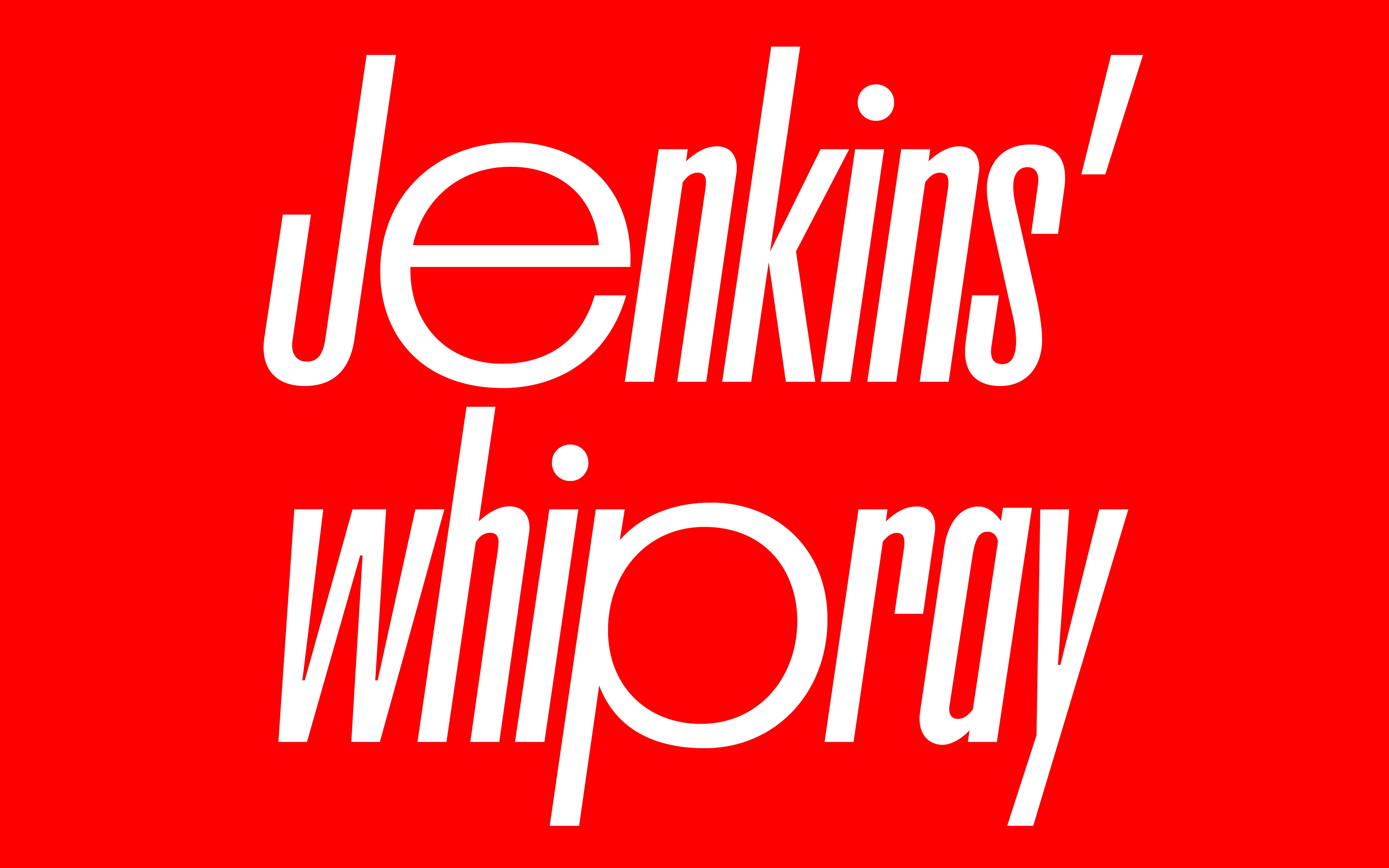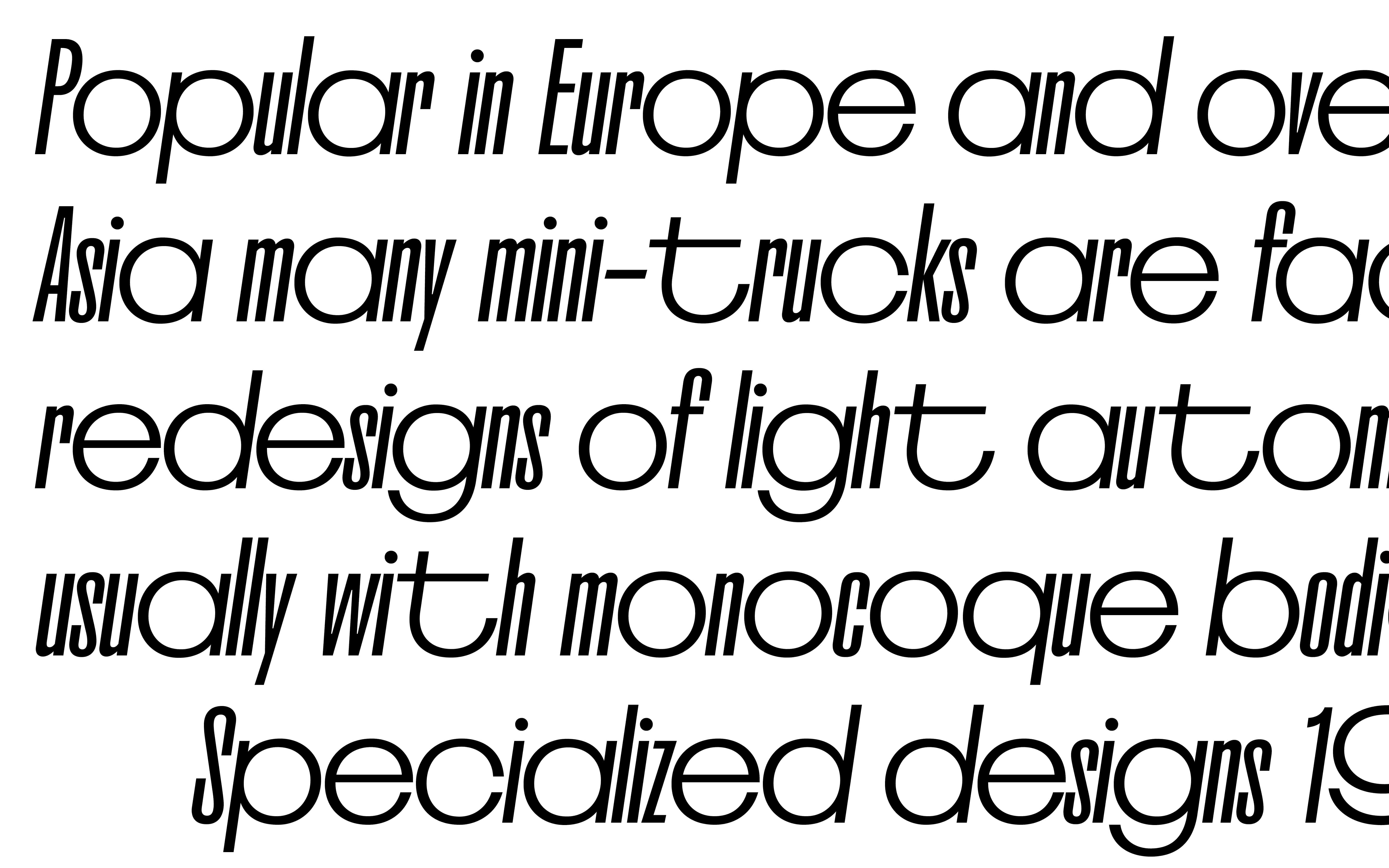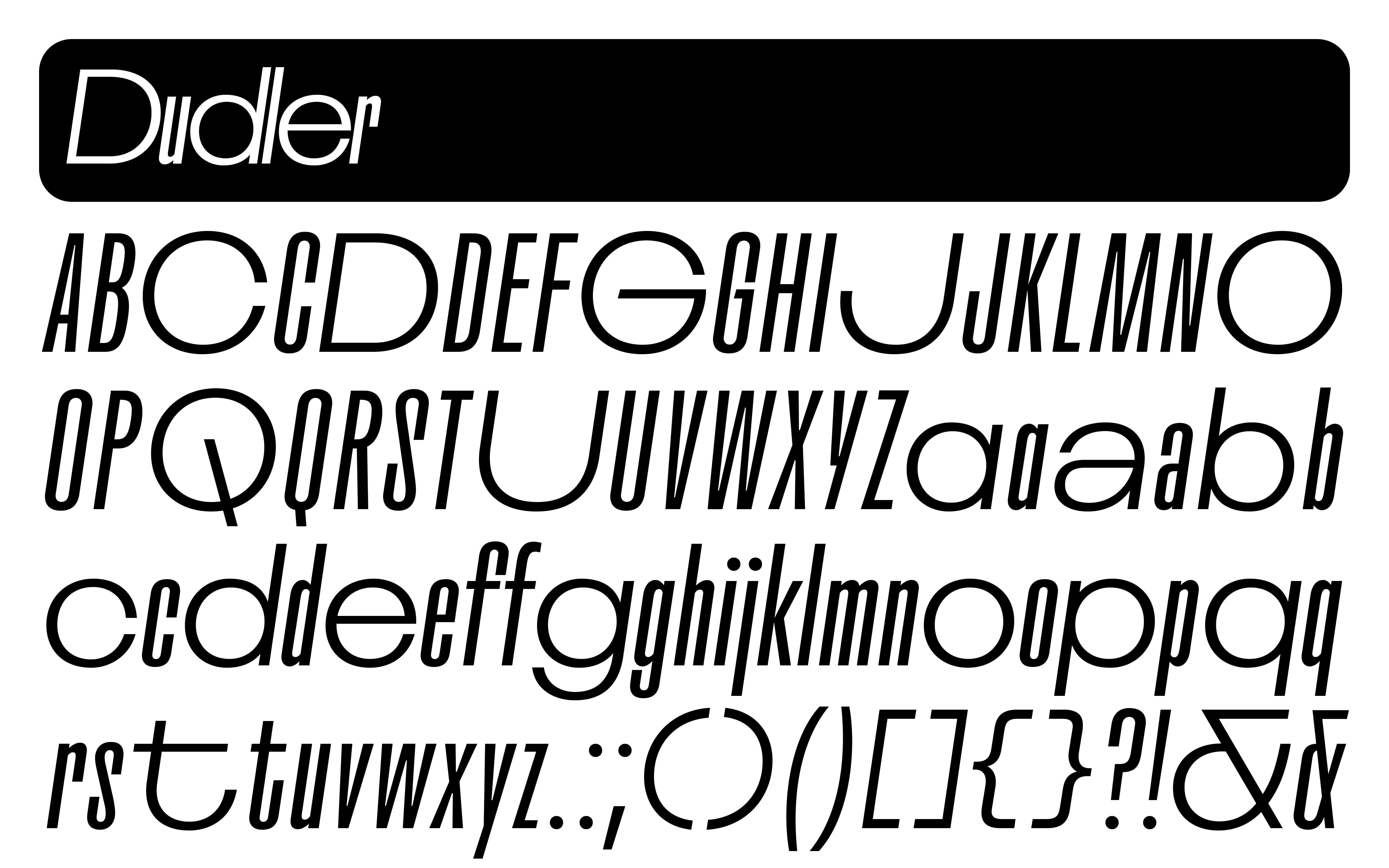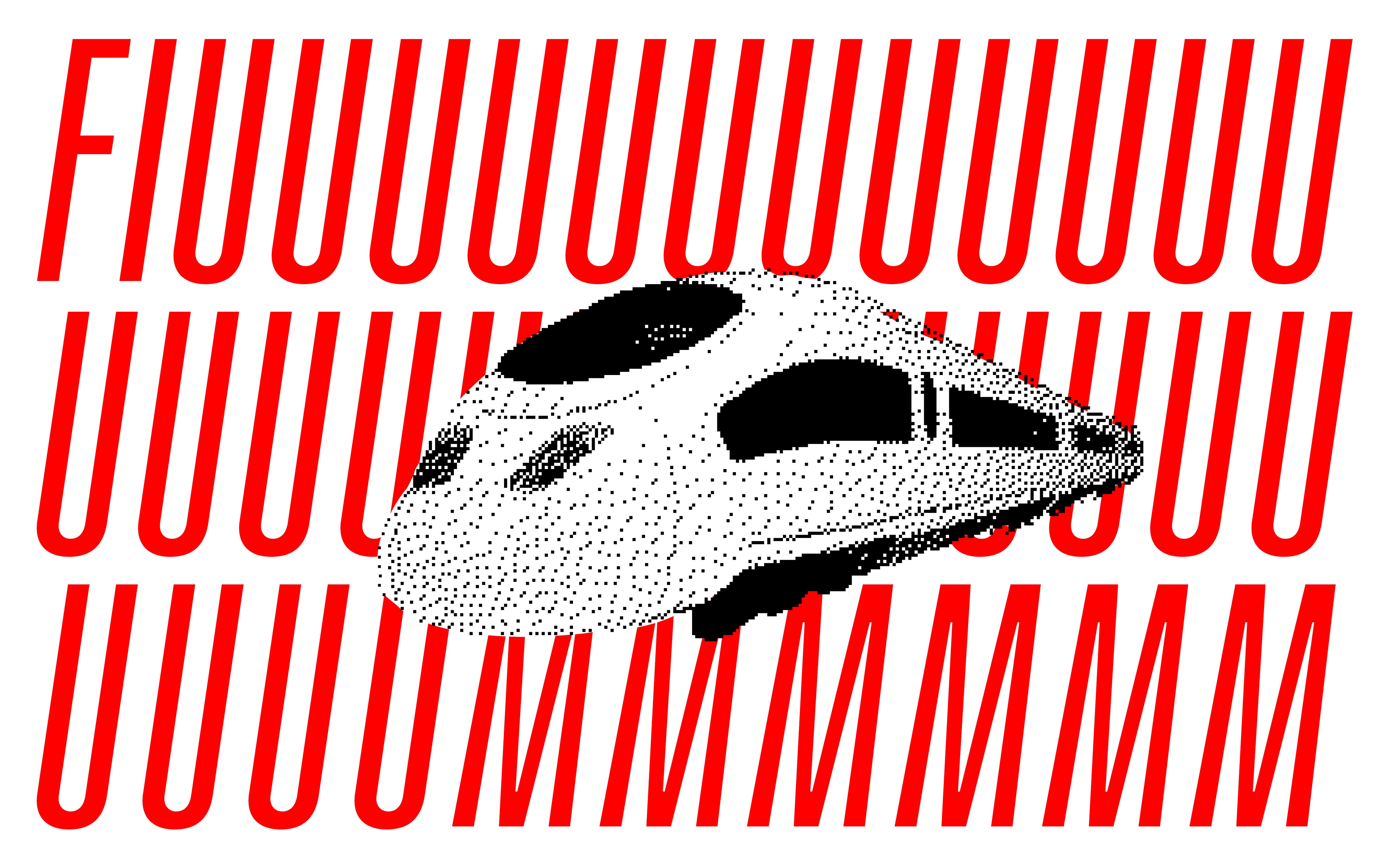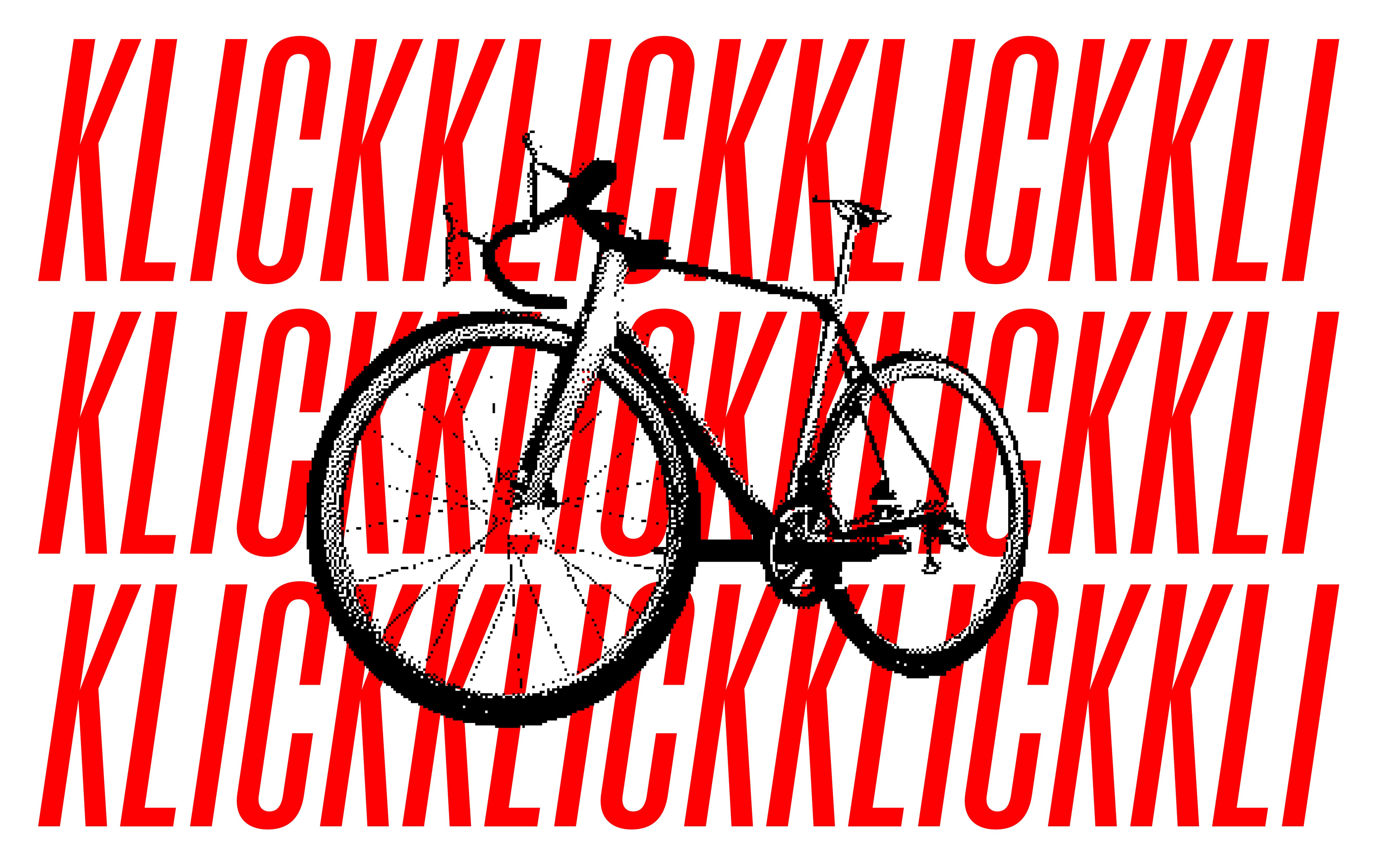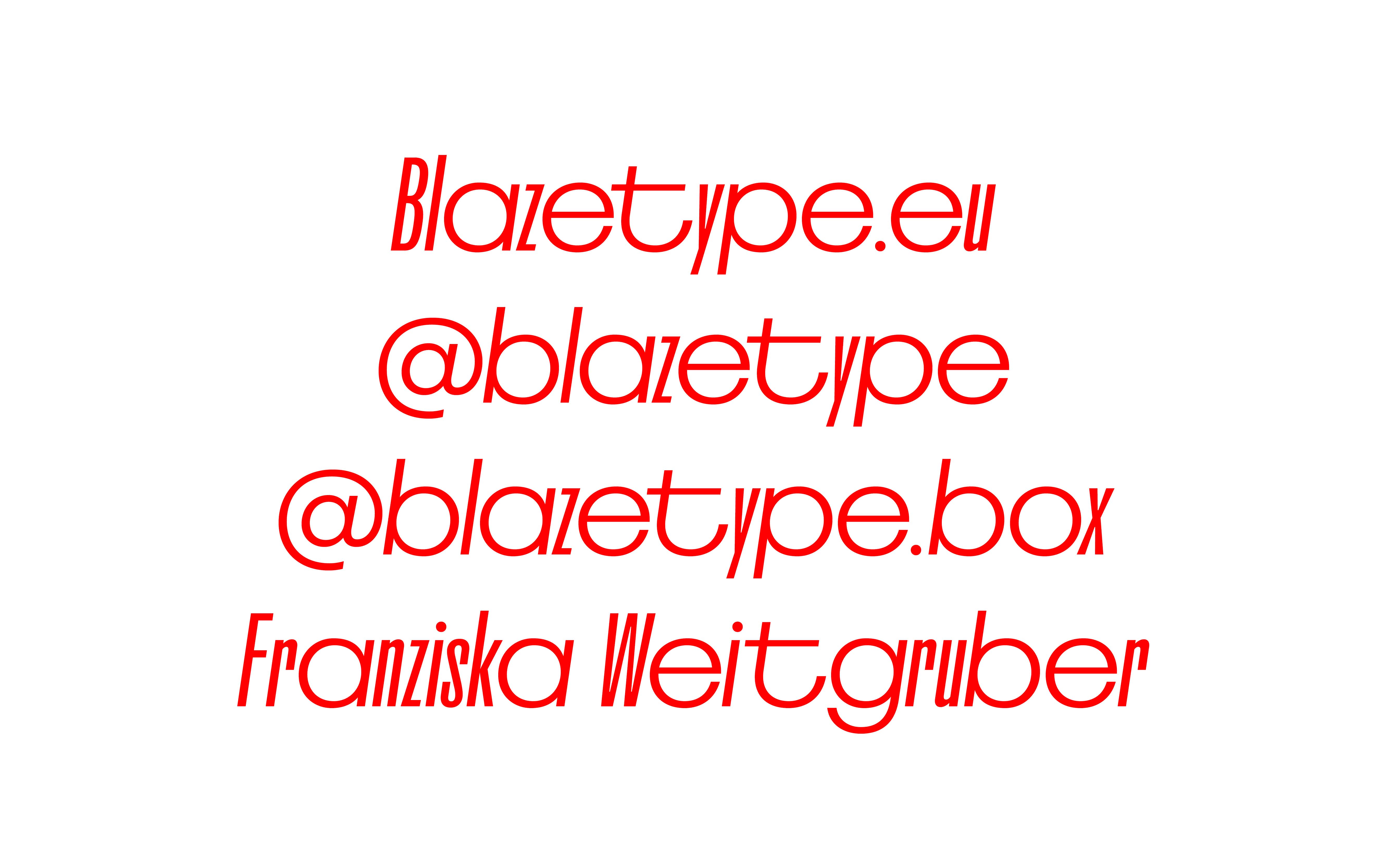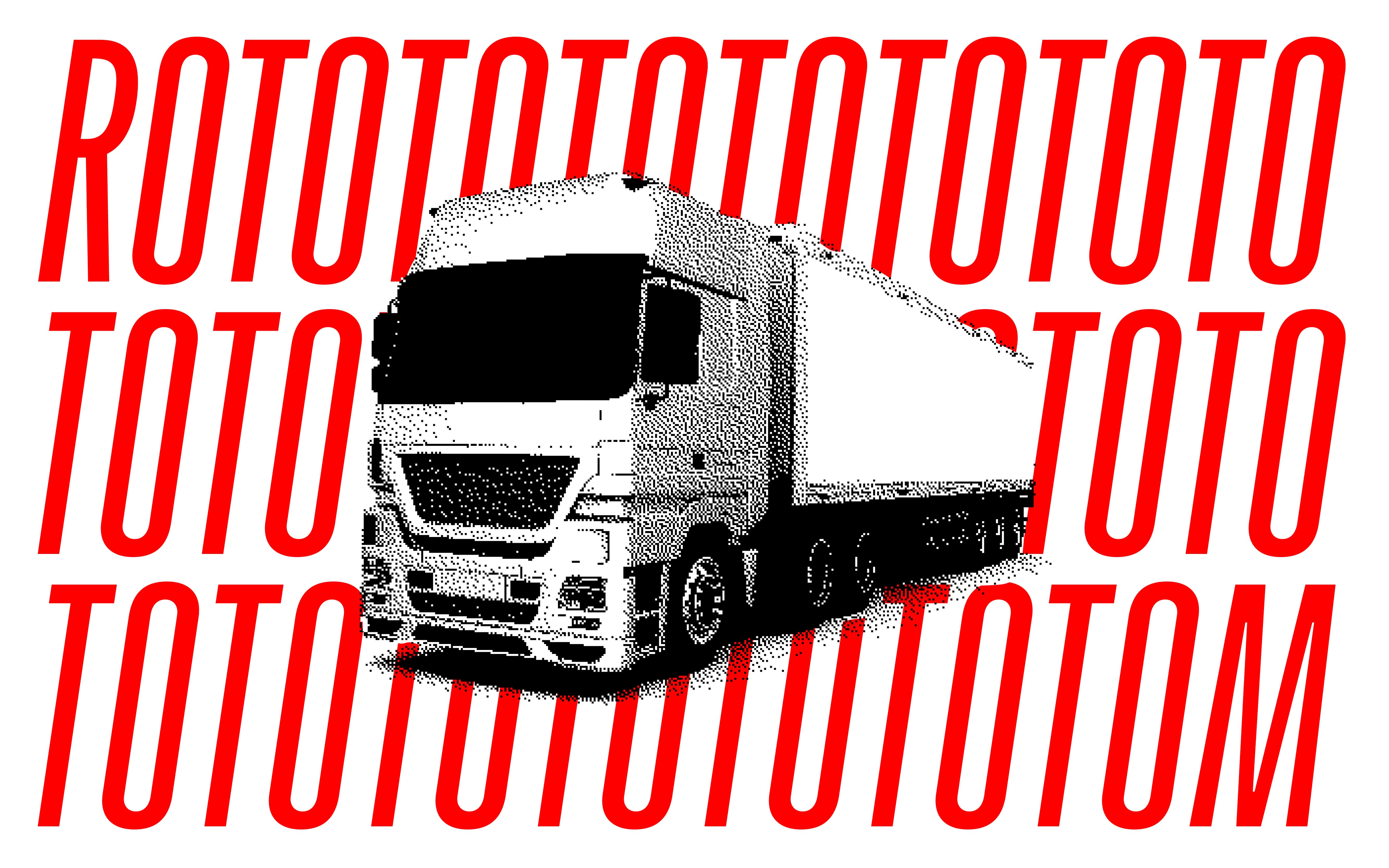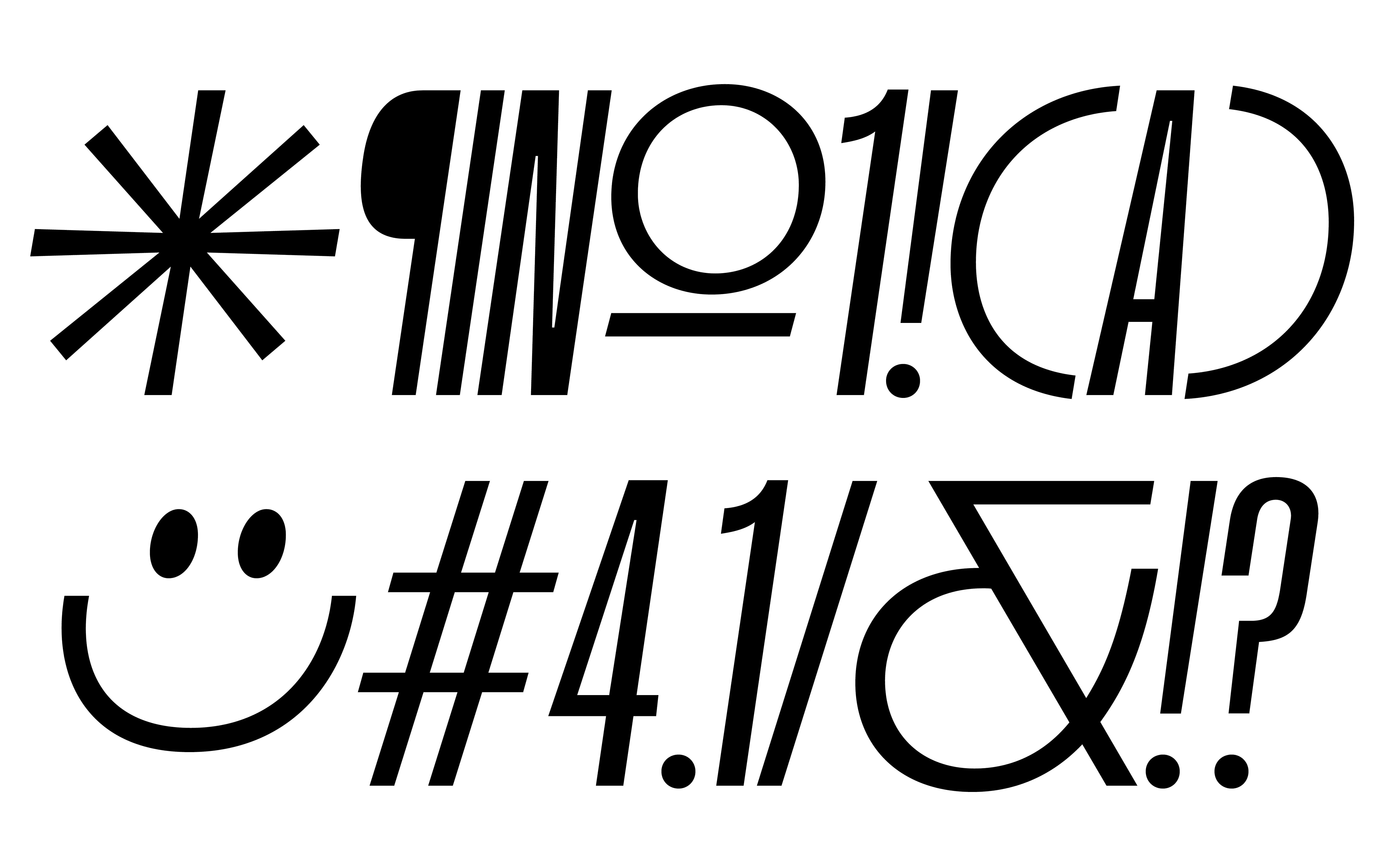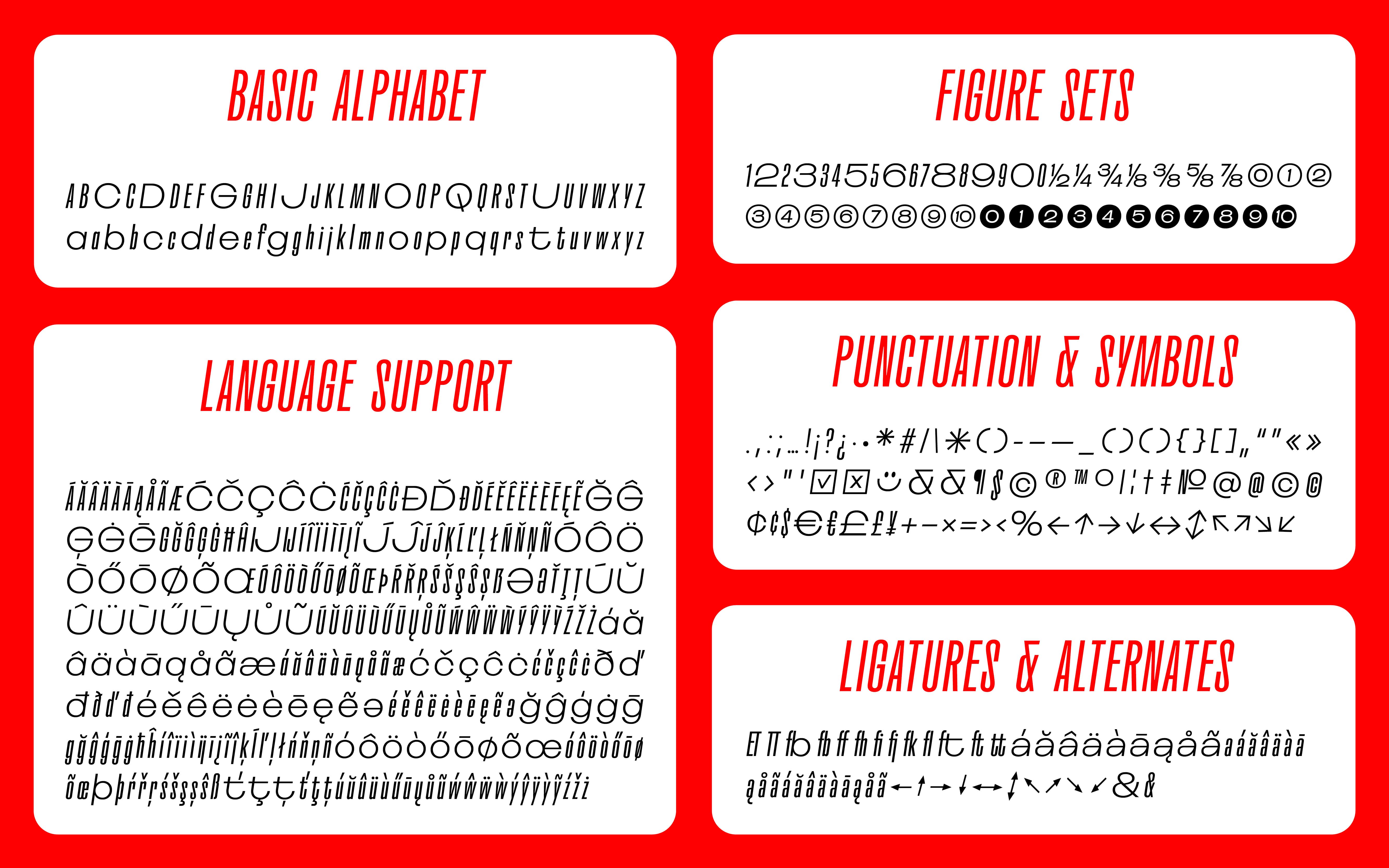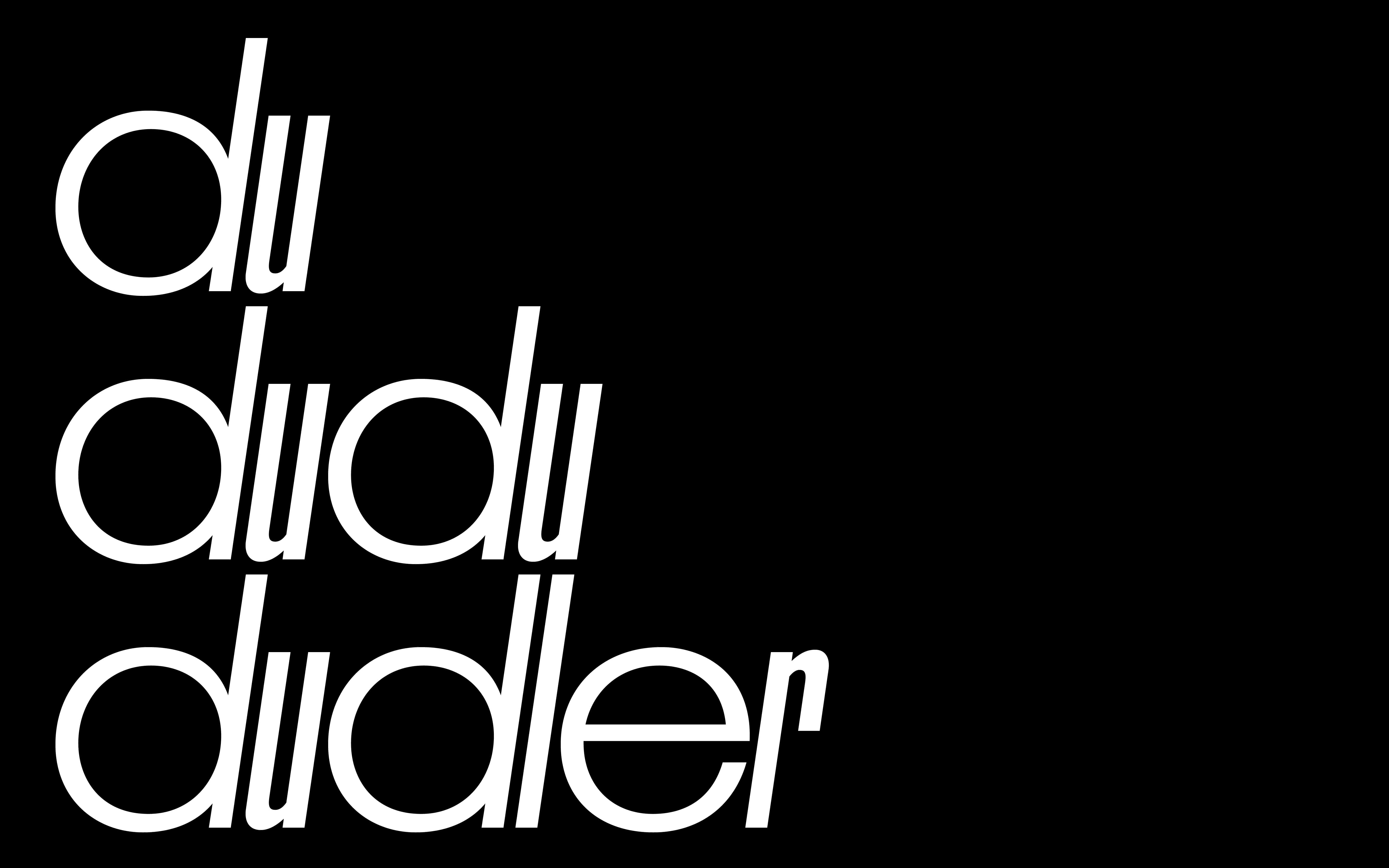
Dudler
Dudler is a design initiated by a situation at a petrol station – a Swiss truck spotted in Val Venosta valley. Narrow, italic like letters and straight paired wide round shapes make rhythm the central design aspect of Dudler. Stylistic narrow alternates for every wide glyph allow the user to become the composer of the rhythm in every word and typesetting. Dudler’s slight italic angle of 8° brings dynamism to its design and gives even more rhythm to any type of composition. Its striking visual language makes it well suited for display and headlines around all kind of projects: posters, websites, motions and so on.
Franziska Weitgruber